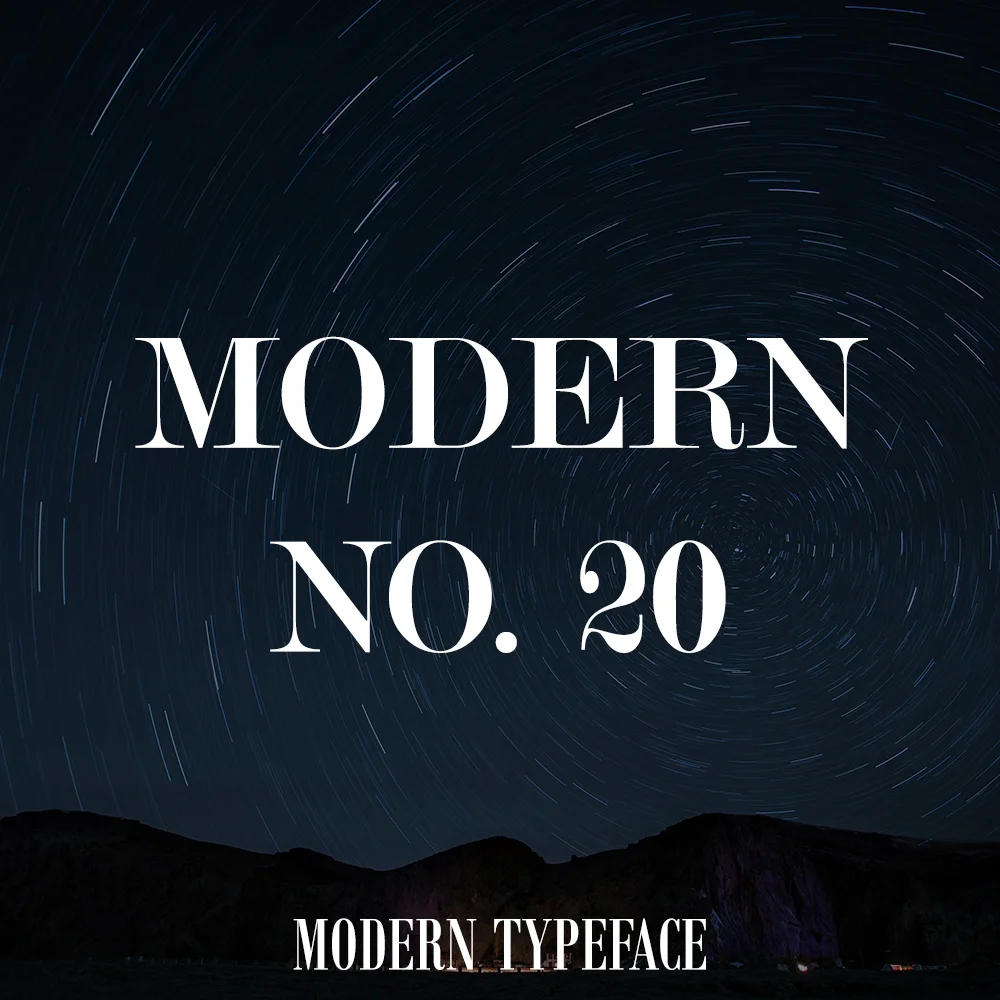
Modern Font Collection
Modern Font Collection - Stay ahead of the curve with modern fonts! Web making the web more beautiful, fast, and open through great typography Plus with a creative twist or dash of detail they. What really makes a font modern? Modern script and modern calligraphy. Web table of contents. Web based on geometric lines and forms, modern fonts are clean, clear, and easy to read; Web modern fonts are styles that are new to our present time, and differ from the remote past. How to upload downloaded fonts to wordpress. Elevate your designs with our sleek and contemporary.
Web based on geometric lines and forms, modern fonts are clean, clear, and easy to read; Elevate your designs with our sleek and contemporary. Modern script and modern calligraphy. What really makes a font modern? Web making the web more beautiful, fast, and open through great typography Stay ahead of the curve with modern fonts! How to upload downloaded fonts to wordpress. Web modern fonts are styles that are new to our present time, and differ from the remote past. Plus with a creative twist or dash of detail they. Web table of contents.
Web based on geometric lines and forms, modern fonts are clean, clear, and easy to read; What really makes a font modern? Plus with a creative twist or dash of detail they. Web modern fonts are styles that are new to our present time, and differ from the remote past. Elevate your designs with our sleek and contemporary. How to upload downloaded fonts to wordpress. Web table of contents. Web making the web more beautiful, fast, and open through great typography Modern script and modern calligraphy. Stay ahead of the curve with modern fonts!
Modern script and modern calligraphy. What really makes a font modern? Stay ahead of the curve with modern fonts! Web making the web more beautiful, fast, and open through great typography Elevate your designs with our sleek and contemporary.
Elevate your designs with our sleek and contemporary. Modern script and modern calligraphy. Web table of contents. Web based on geometric lines and forms, modern fonts are clean, clear, and easy to read; Web modern fonts are styles that are new to our present time, and differ from the remote past.
Web table of contents. Stay ahead of the curve with modern fonts! Web making the web more beautiful, fast, and open through great typography Web modern fonts are styles that are new to our present time, and differ from the remote past. What really makes a font modern?
Plus with a creative twist or dash of detail they. Elevate your designs with our sleek and contemporary. Stay ahead of the curve with modern fonts! Web modern fonts are styles that are new to our present time, and differ from the remote past. Web based on geometric lines and forms, modern fonts are clean, clear, and easy to read;
Stay ahead of the curve with modern fonts! Web table of contents. Web making the web more beautiful, fast, and open through great typography Elevate your designs with our sleek and contemporary. Web based on geometric lines and forms, modern fonts are clean, clear, and easy to read;
How to upload downloaded fonts to wordpress. Elevate your designs with our sleek and contemporary. Modern script and modern calligraphy. Web table of contents. What really makes a font modern?
The Ultimate 150+ Best Modern Fonts Collection Website Design in
Modern script and modern calligraphy. How to upload downloaded fonts to wordpress. Web table of contents. Stay ahead of the curve with modern fonts! Web modern fonts are styles that are new to our present time, and differ from the remote past.
Free Font Collection 18 Modern Fonts — Journey With Jess Inspiration
What really makes a font modern? Stay ahead of the curve with modern fonts! Elevate your designs with our sleek and contemporary. How to upload downloaded fonts to wordpress. Web modern fonts are styles that are new to our present time, and differ from the remote past.
32 Best Modern Elegant Fonts for Stunning Design Projects Design
Web based on geometric lines and forms, modern fonts are clean, clear, and easy to read; Plus with a creative twist or dash of detail they. Elevate your designs with our sleek and contemporary. Modern script and modern calligraphy. How to upload downloaded fonts to wordpress.
Best Modern Fonts Sleek & Edgy Typefaces
What really makes a font modern? Web making the web more beautiful, fast, and open through great typography Modern script and modern calligraphy. Web modern fonts are styles that are new to our present time, and differ from the remote past. Web table of contents.
Web Modern Fonts Are Styles That Are New To Our Present Time, And Differ From The Remote Past.
Elevate your designs with our sleek and contemporary. Web making the web more beautiful, fast, and open through great typography Modern script and modern calligraphy. Web table of contents.
Plus With A Creative Twist Or Dash Of Detail They.
Stay ahead of the curve with modern fonts! What really makes a font modern? Web based on geometric lines and forms, modern fonts are clean, clear, and easy to read; How to upload downloaded fonts to wordpress.